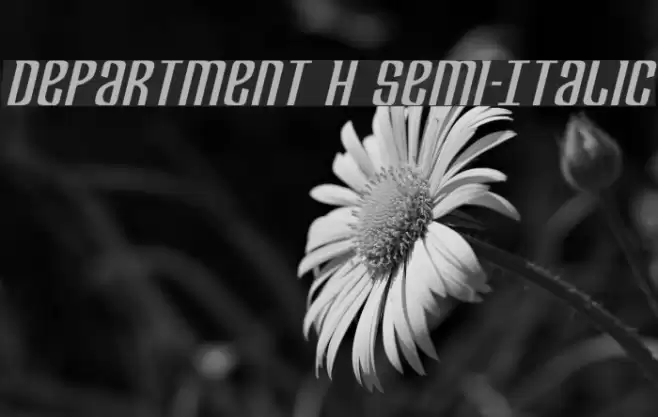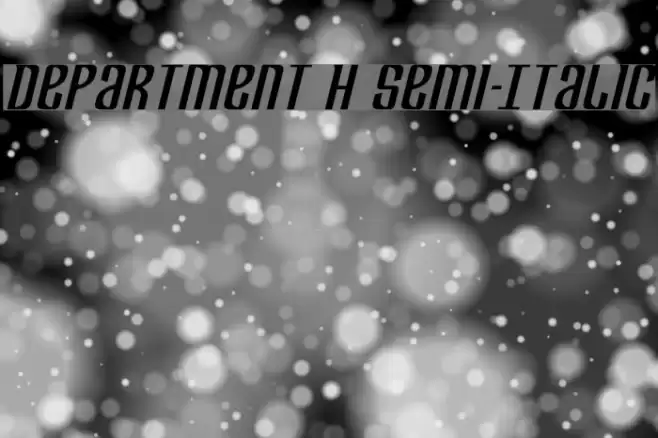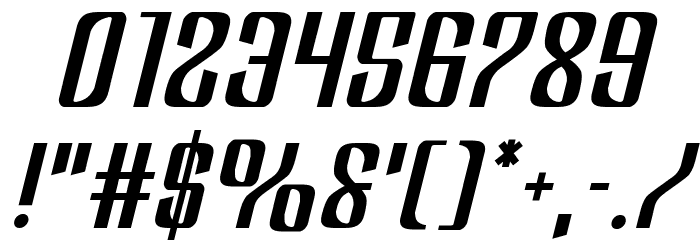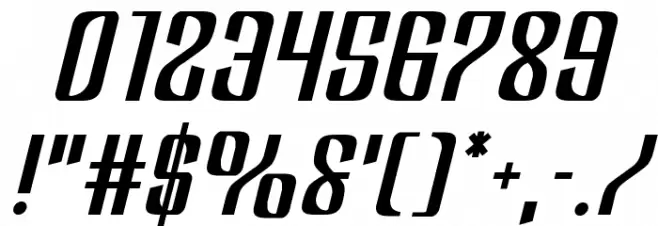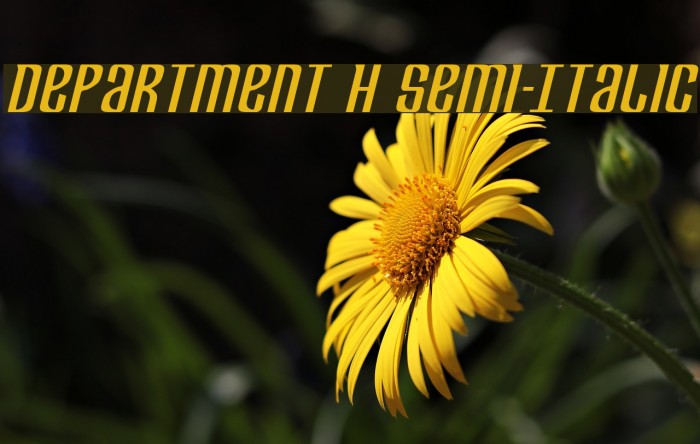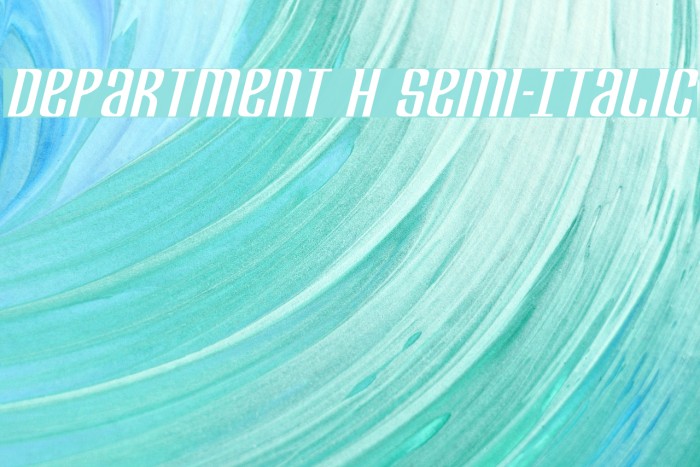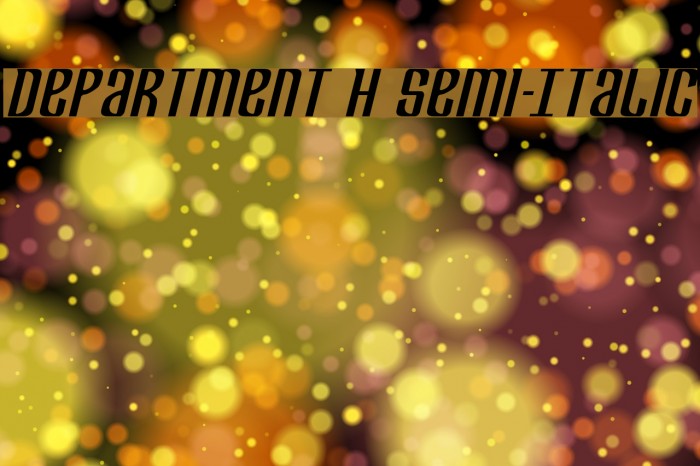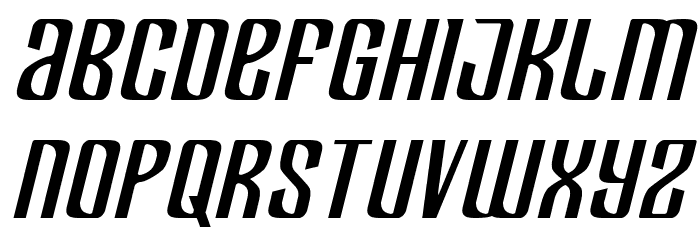
Department H Semi-Italic Font
Department H Semi-Italic Description
This font features a dynamic and modern design with a semi-italic style that gives it a forward-leaning appearance. The characters are bold and have a distinct slant, adding a sense of motion and energy. The strokes are consistent in thickness, providing a uniform look across all characters. The uppercase and lowercase letters maintain a cohesive style, while the numerals and special characters are designed to match the overall aesthetic. This font is well-suited for projects that require a contemporary and assertive look.
A bold, semi-italic font with a modern and dynamic style from Uncategorized fonts.
- Proposed Projects: Ideal for branding, headlines, posters, and any design that requires a bold and modern touch.